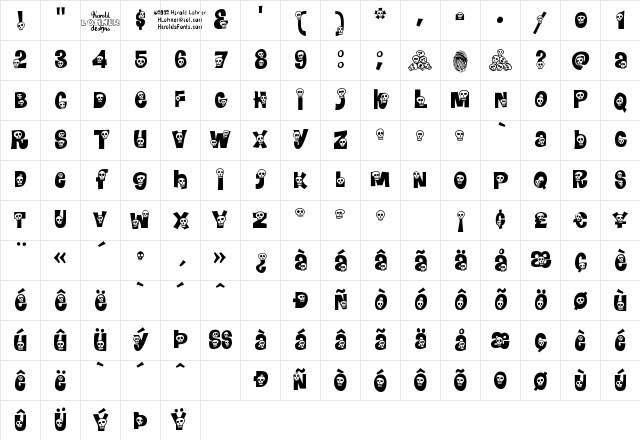
Calaveras Regular Free Font
Calaveras Regular
Copyright: CALAVERAS computer font v1.0 ©2002 Harold Lohner "  " www.haroldsfonts.com A takeoff of the classic analog font "Daisyland"
Design Context for Calaveras
Calaveras is a composed and adaptable typeface that performs quietly and consistently across a wide range of design contexts.